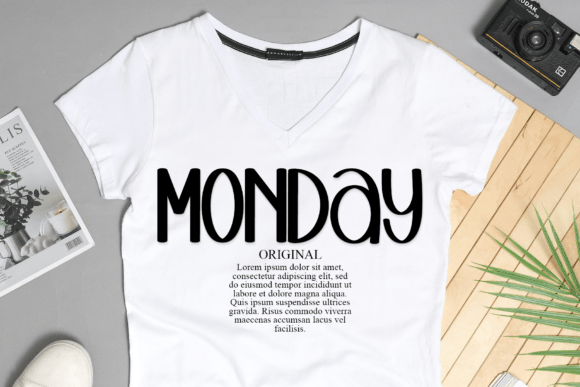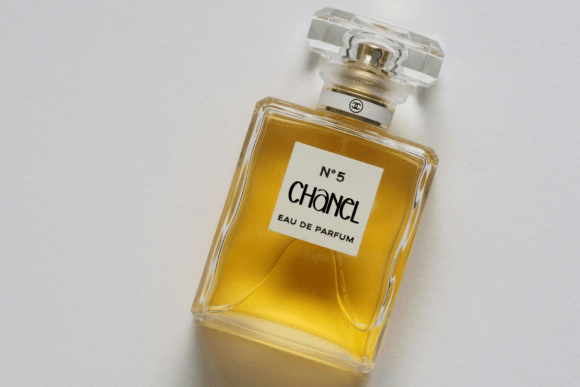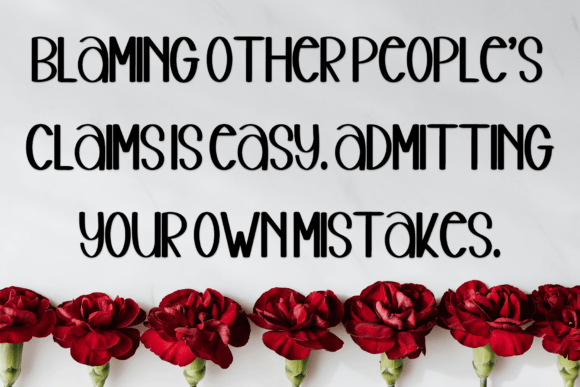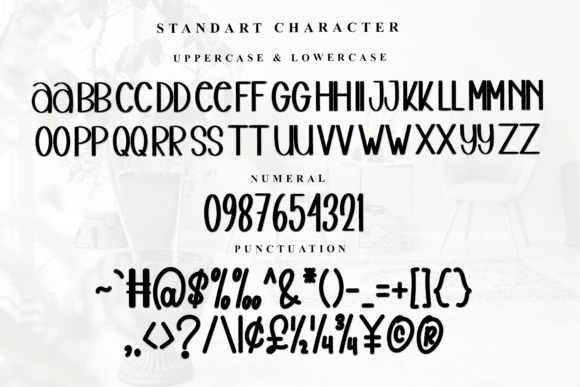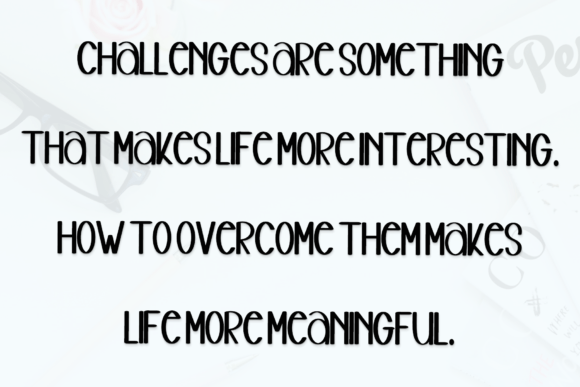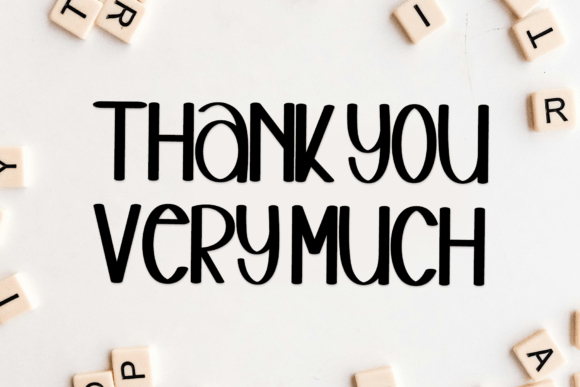
Introduction to Santa Coffee Font
That’s where the Santa Coffee Font comes in – a festive and merry typeface that will transport your words to a winter wonderland. This delightful font is a must-have design resource for any creative project, and its high-quality glyphs and ligatures will add a touch of enchantment to your designs.
Whether you’re a seasoned designer or a hobbyist, the Santa Coffee Font is a valuable addition to your design arsenal. With its transparent background and free download, you can easily incorporate it into your projects and make them shine with the magic of the holiday season.
- Unique characteristics: The Santa Coffee Font features a unique, hand-drawn design that adds a touch of personality to any creative project.
- Perfect for coffee shops and cafes: The font’s design is specifically inspired by the coffee culture, making it a great choice for coffee shops, cafes, and related businesses.
- ✨ The font has a distinct and playful vibe, perfect for coffee shops, cafes, or any project that needs a cozy feel.
- ✨ The design is clean and well-crafted, making it easy to read and use in various contexts.
- ⚠️ The font doesn’t come with a transparent background option, which might limit its use in certain design scenarios.
- ⚠️ The font family is relatively small, so you might need to use it in conjunction with other fonts to achieve the desired effect.
Overall, I’m impressed with the Santa Coffee Font’s design quality and its potential to add a unique touch to creative projects. While it may have some limitations, it’s definitely a valuable resource for designers who need a high-quality, free font.
The Santa Coffee Font is perfect for a variety of creative projects, including coffee shop branding, holiday marketing campaigns, and social media graphics. Its high-quality design and transparent background make it easy to use in a variety of design applications.